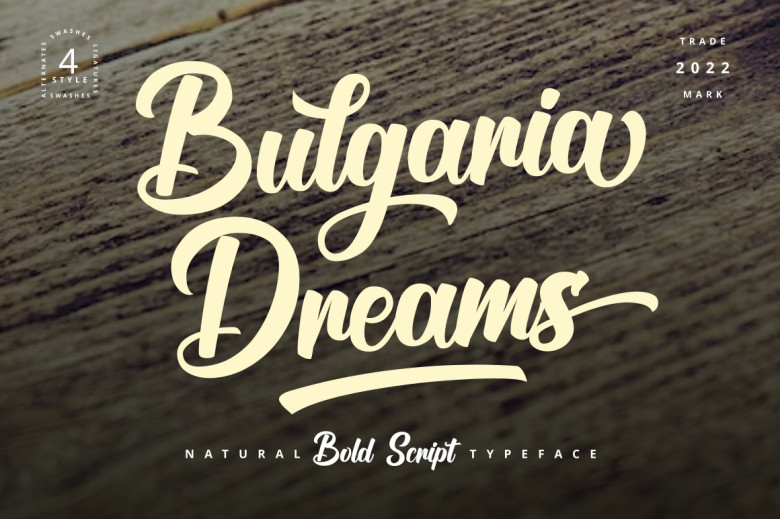
Bulgaria Dreams Font
Bulgarian Dreams is a dream! This extraordinary lettering style font features smooth, natural curved lines which make it look like handwriting on paper using a brush pen. Apart from being used for logos and brochures, Bulgaria Dreams is also applicable for poster titles, book titles, lettering, merchandise Design etc.
Bulgaria Dreams Bold Script Font